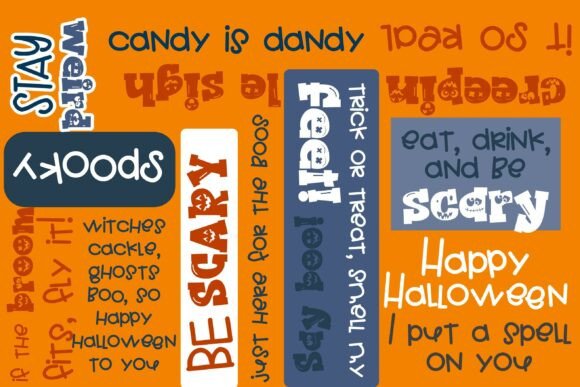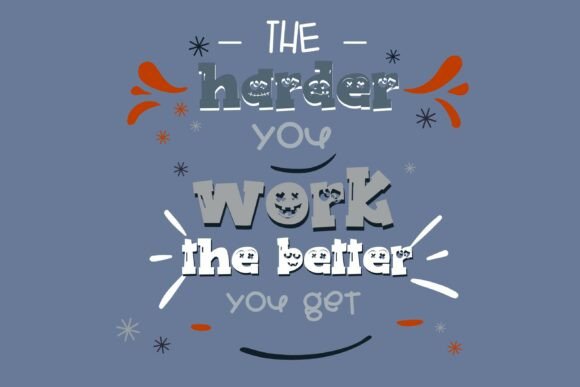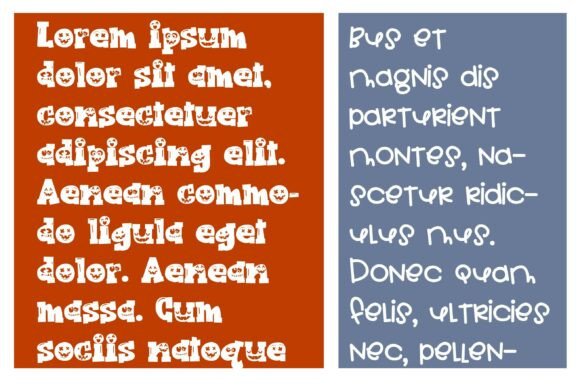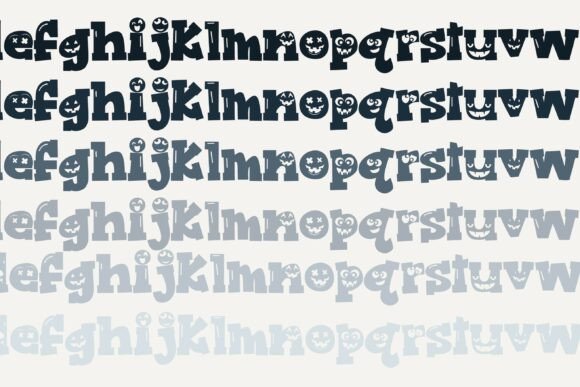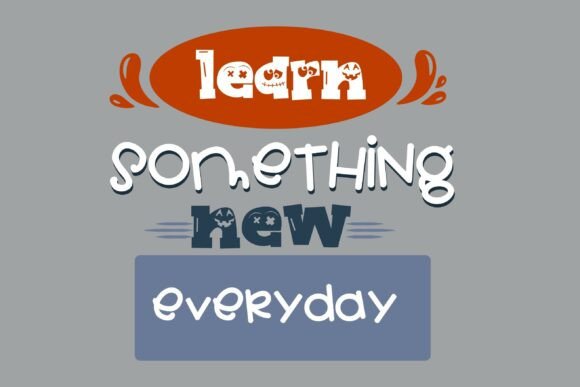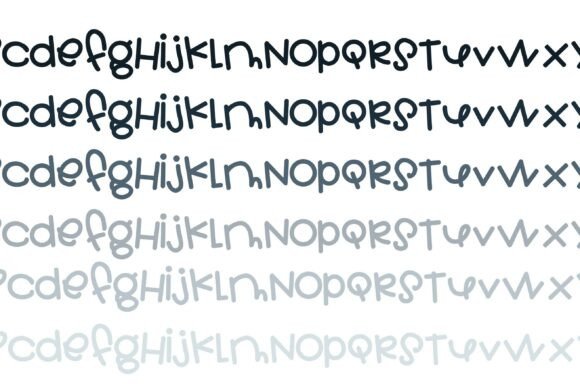
Introduction to Goblin Grins Duo Font
This hand-crafted font duo combines a chunky, thick jack-o-lantern serif with a hand-written print.
With all family members combined of the two fonts, you get 12 fonts altogether Hand-crafted fonts can be either formal or informal, and they can be used for a variety of purposes.
Goblin Grins Duo Font offers exceptional quality and versatility, making it a valuable addition to your design toolkit. Whether you’re creating for personal projects or commercial use, Goblin Grins Duo Font delivers professional results.